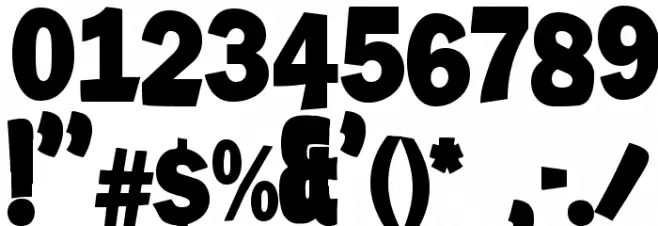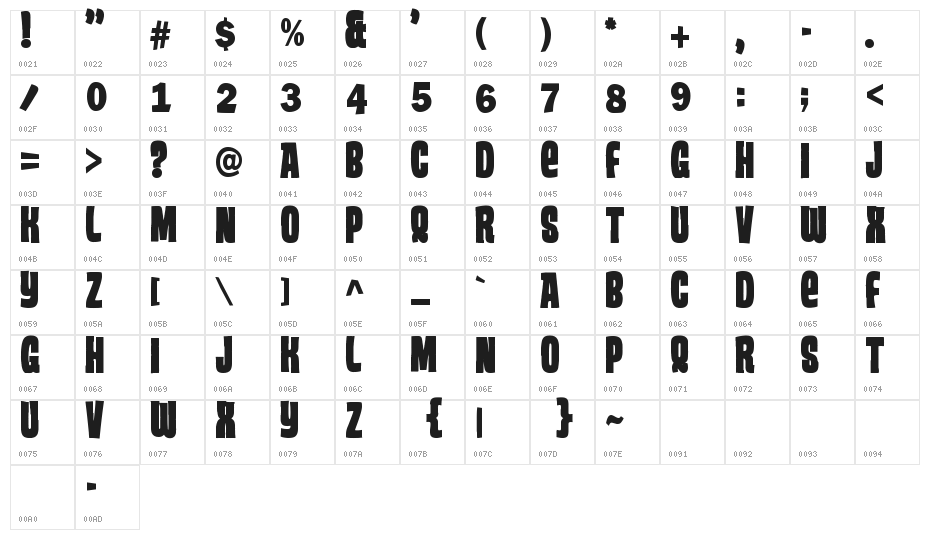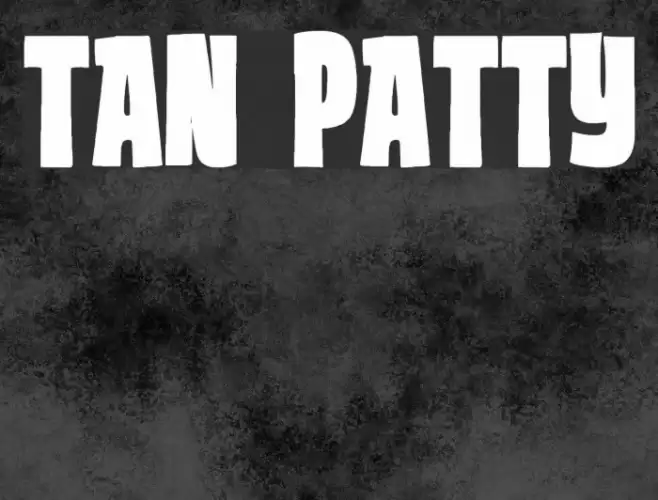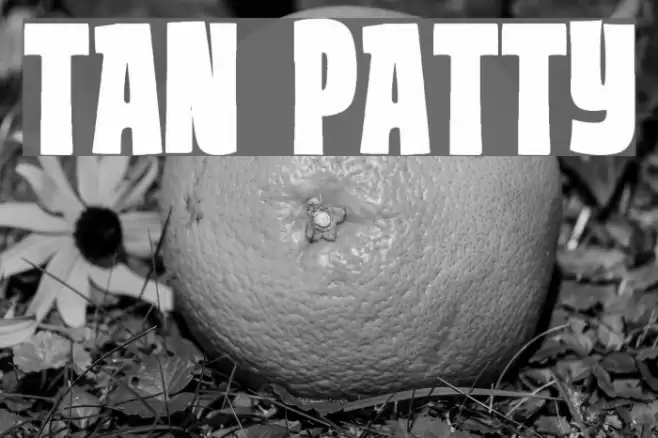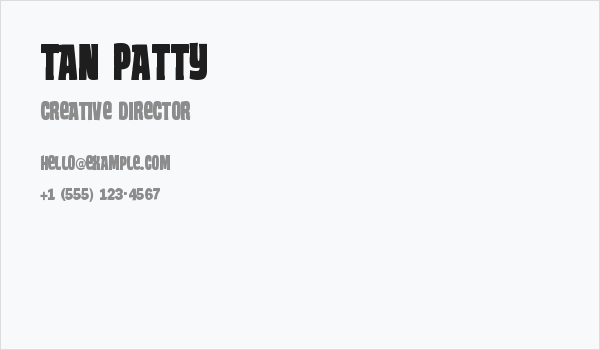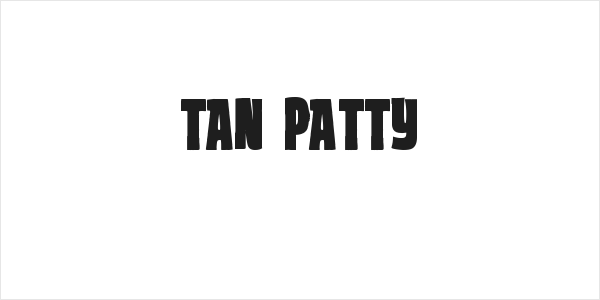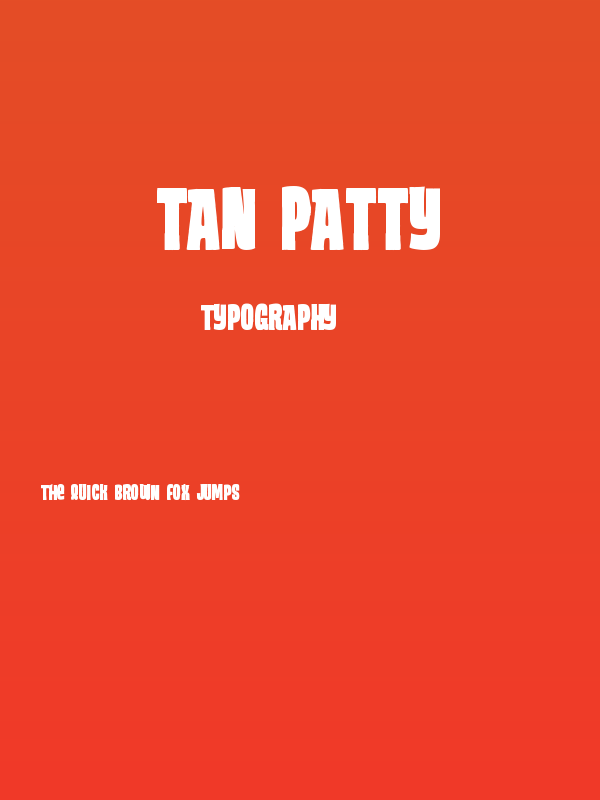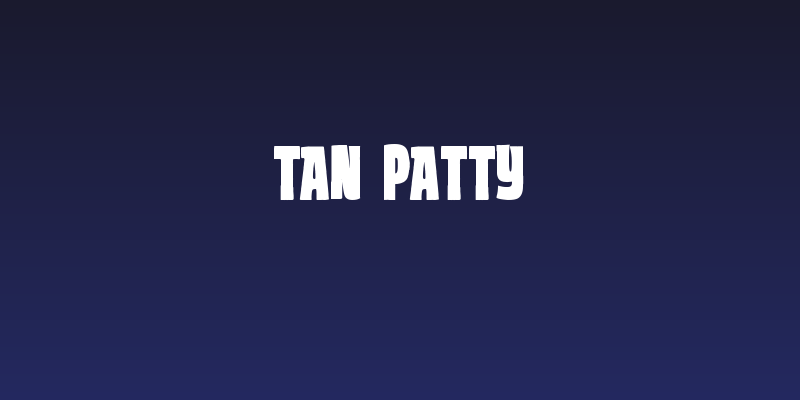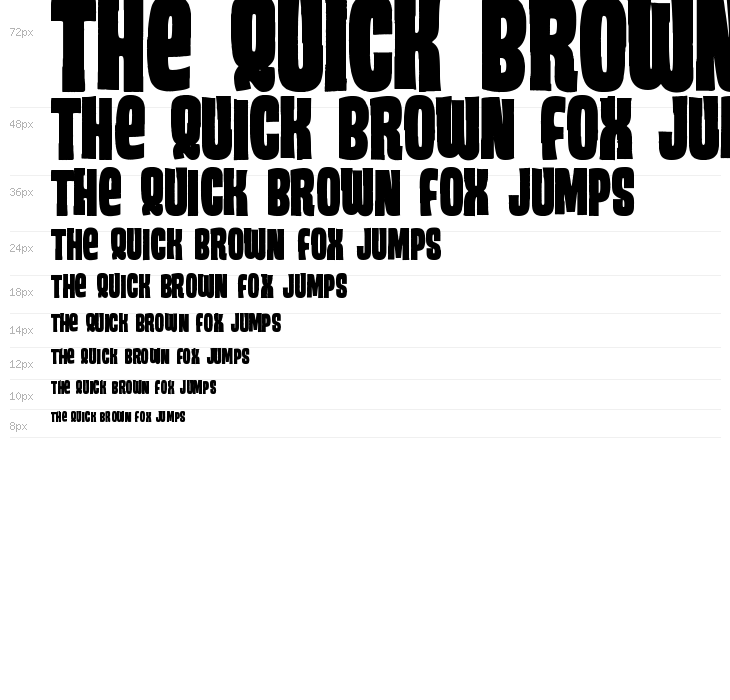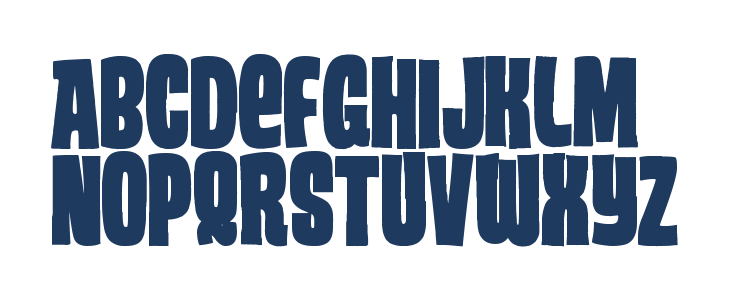
Tan Patty Font
Tan Patty Description
This font features a bold and playful design with thick, heavy strokes that give it a strong presence. The characters are slightly condensed, contributing to a compact and impactful look. The style is distinctly decorative, with exaggerated curves and angles that add a whimsical touch. The uppercase and lowercase letters maintain a consistent weight, ensuring uniformity across the text. Numbers and special characters are equally bold, making them stand out. This font's unique style is ideal for projects that require a fun and eye-catching aesthetic.
TAN-PATTY UPPERCASE
TAN-PATTY LOWERCASE
TAN-PATTY OTHER CHARS
| Overall Style | Playful, Decorative |
| Proposed Projects | Ideal for posters, children's books, playful branding, and eye-catching headlines. |